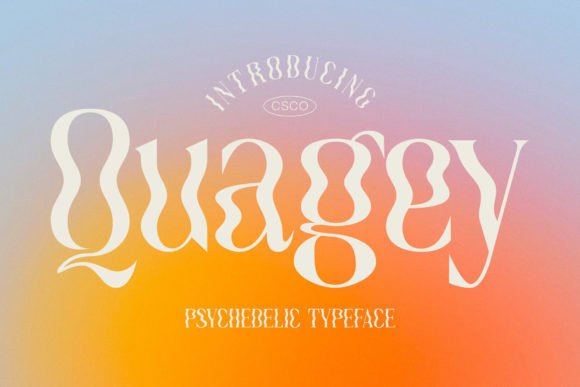
Journey into the Realm of Quagey Font: A Psychedelic Masterpiece for Visual Revolutionaries
Unleash the boundless creativity within you with Quagey Font, a display typeface that transcends the ordinary, transforming your designs into mesmerizing spectacles. This font is not merely a collection of letters; it's a gateway to a world where imagination runs wild and visual boundaries dissolve.
With Quagey Font, you're not just designing; you're painting with vibrant colors and dancing letters, creating visual masterpieces that captivate and enthrall. It's a font that demands attention, making your message unmissable, leaving an indelible imprint on the minds of your audience.
Step into the Psychedelic Vortex of Expression
Quagey Font is a kaleidoscope of visual delight, a symphony of colors and shapes that dance together in perfect harmony. Each letter is a stroke of genius, a burst of energy that ignites the imagination. It's a font that liberates your creativity, allowing you to break free from the mundane and embrace the extraordinary.
Whether you're crafting eye-catching greeting cards, designing captivating packaging, or building a brand identity that radiates uniqueness, Quagey Font is your ultimate companion. It brings life to posters, adds a touch of whimsy to invitations, and transforms any design project into a visual odyssey.
Feel the Rush of Creative Freedom
With Quagey Font, you're not bound by rules or conventions; you're the master of your own visual destiny. Experiment with letter spacing, mix and match colors, and let your imagination soar. This font is your canvas, and the possibilities are endless.
Don't settle for ordinary fonts that blend into the background; embrace the boldness of Quagey Font and let your designs shine brighter than ever before. This typeface is a testament to the power of creativity, a reminder that there are no limits to what you can achieve when you dare to be different.